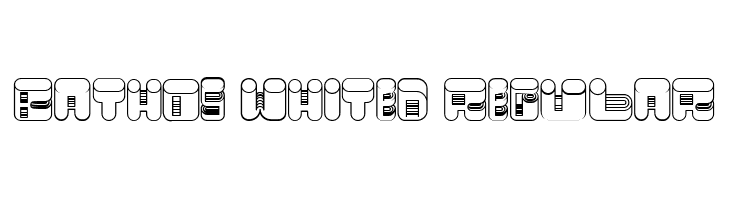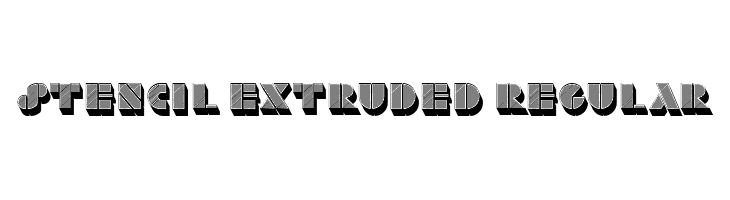
A bold, 3D geometric font with a strong shadow effect.
A modern, geometric font with bold and thin strokes, featuring a 3D effect.
A bold, 3D extruded font with a vintage yet modern appeal.
A bold, extruded, hollow font with a three-dimensional, geometric style.
A bold, geometric font with circular elements and a modern aesthetic.
A bold, futuristic font with a three-dimensional, outlined style.
A bold, futuristic font with a 3D effect and geometric style.
A bold, decorative font with geometric patterns and diamond-shaped cutouts.
A bold, decorative font with geometric cutouts and a shadow effect.
A bold, decorative font with a three-dimensional, geometric design.